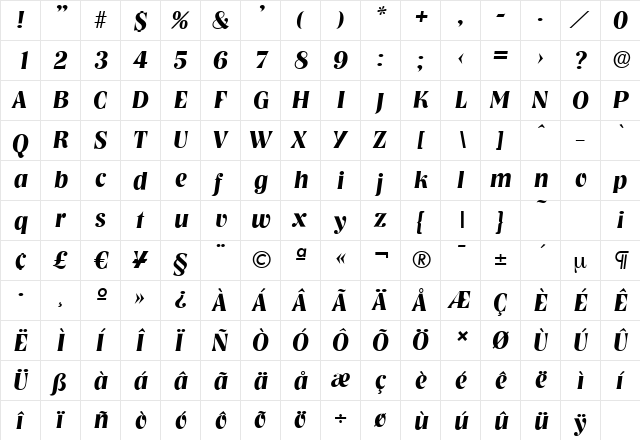
NashvilleSerial BoldItalic
Design Context for NashvilleSerial Typeface
NashvilleSerial is a composed and adaptable typeface that performs quietly and consistently across a wide range of design contexts. Its italic angle brings a sense of urgency and motion to the letterforms. The heavy weight commands attention and anchors typographic hierarchies.
Pro Tip: Try NashvilleSerial for annotation and caption copy alongside an upright companion — the contrast in angle creates a dynamic but ordered typographic system.